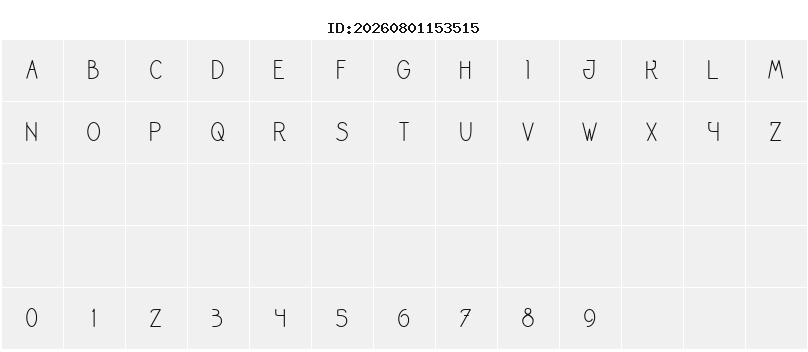
About LE CABARET DES FOUS.ttf
LE CABARET DES FOUS.ttf is a modern, elegant sans-serif font designed for ultimate readability and visual harmony. Perfect for branding, headlines, web design, and print materials.